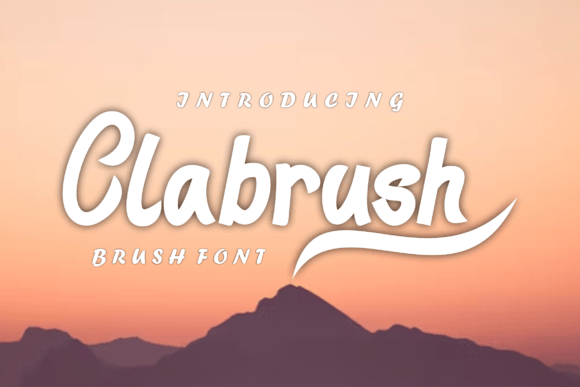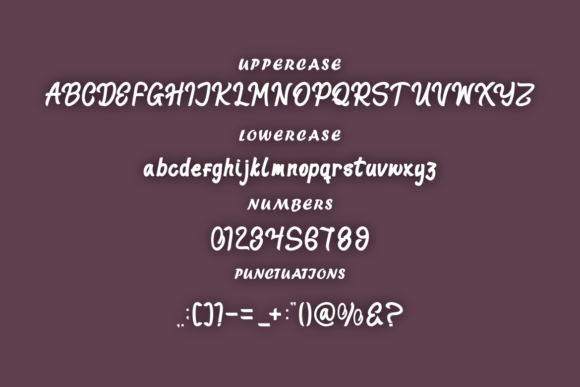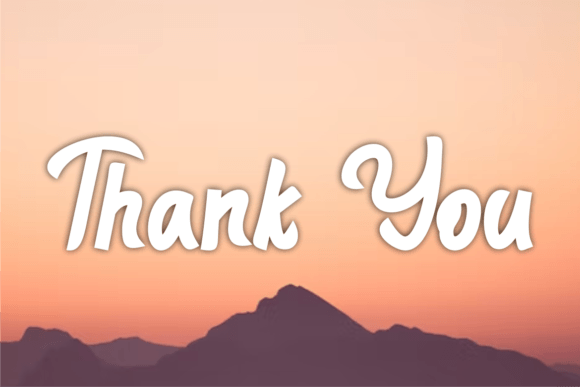
Clabrush Font
Introducing Clabrush Font
The Clabrush Font is a casual and modern handwritten script typeface known for its versatility and contemporary style. This font is designed to be a confident addition to your design projects, ensuring that you love the results. Its charm lies in its ability to convey a sense of casualness and modernity, making it suitable for a wide range of design contexts.
Why Choose This Typeface?
• Casual and Modern: Clabrush adds a touch of contemporary elegance to your designs, making it perfect for branding, invitations, posters, and more.
• Versatile Usage: This font provides a visually appealing choice for various creative endeavors, allowing you to infuse your designs with confidence and style.
Applications of Clabrush
• Branding: Use this font to create elegant branding materials that capture attention.
• Invitations: Enhance your invitations with a sophisticated style that conveys modern elegance.
• Posters: Perfect for adding a stylish script aesthetic to posters and other creative projects.
The Impact of Using Clabrush
This font elevates your designs by making them visually captivating and memorable. It becomes a reliable tool for designers seeking to create projects that stand out with elegance. Its balanced form ensures your designs are both refined and captivating.
The Value It Brings
This typeface excels in combining contemporary design aesthetics with casual elegance. By choosing Clabrush, you ensure your designs are not only visually appealing but also sophisticated and unique.
This font is also ideal for various creative projects beyond traditional uses. It can enhance digital designs with its elegant flair, making it suitable for websites, brochures, or mobile interfaces. The Clabrush Font adapts well to different screen sizes while maintaining its charm. As design trends evolve, this font remains relevant due to its timeless appeal, balancing style with functionality effectively.